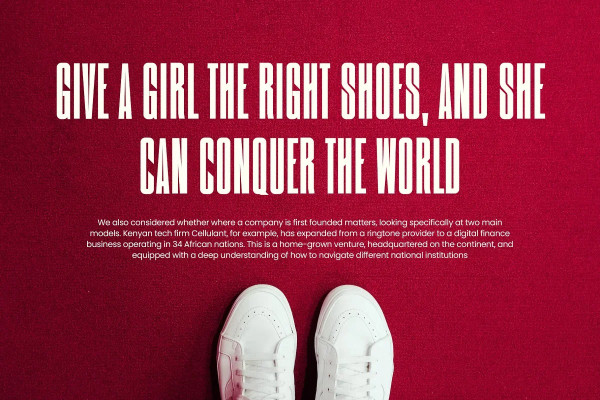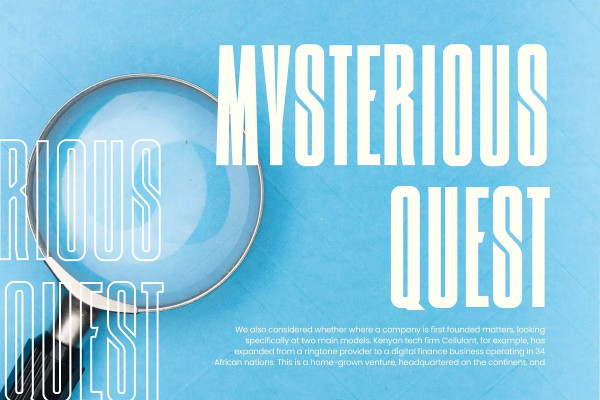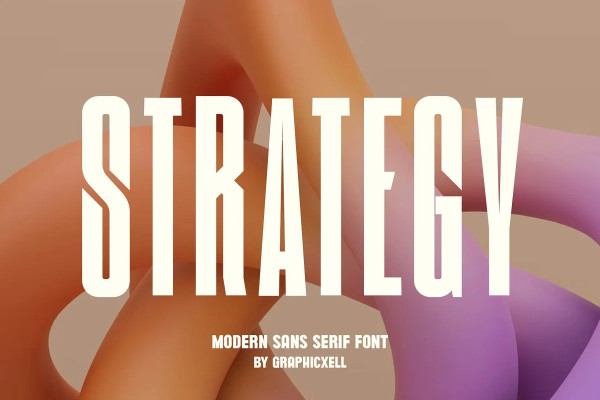
Strategy Font
Strategy Font, inspired by the famous minimalist logo perfect for the purposes of designing templates, brochures, videos, advertising branding, logos, invitation, layout design, elegant crafting, beauty design and more.